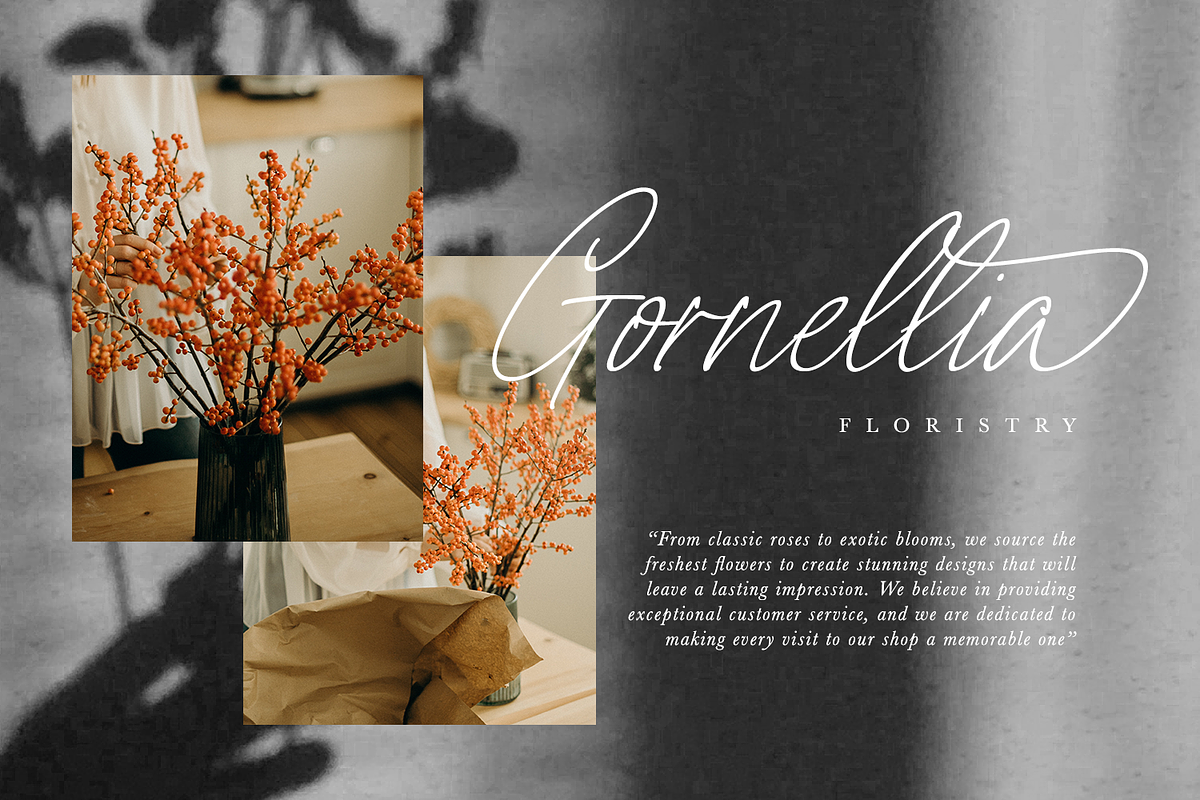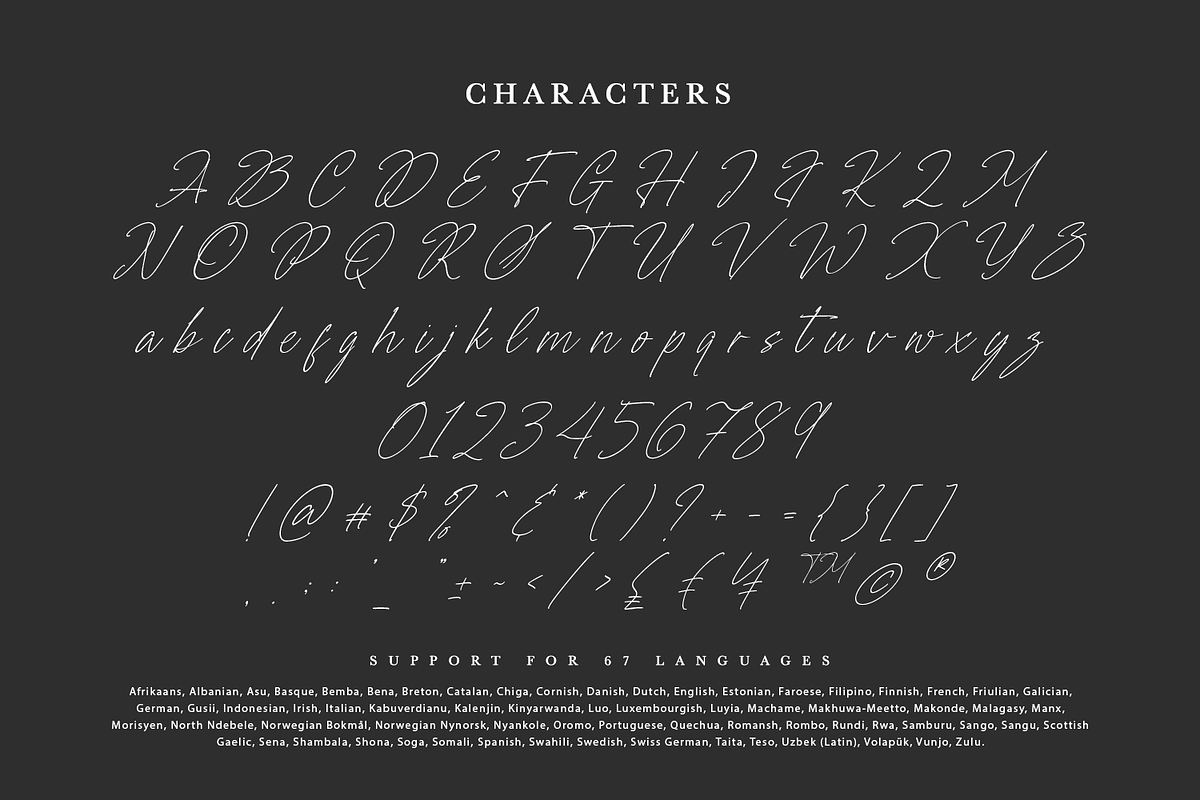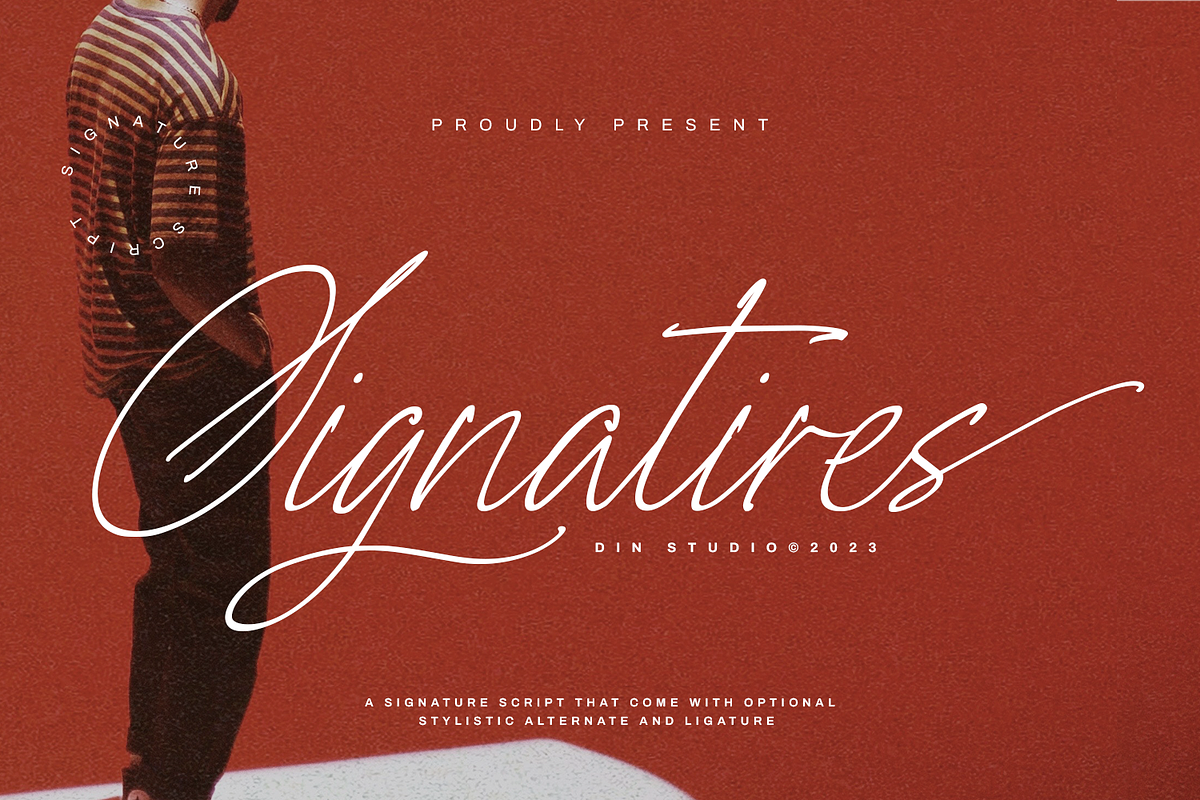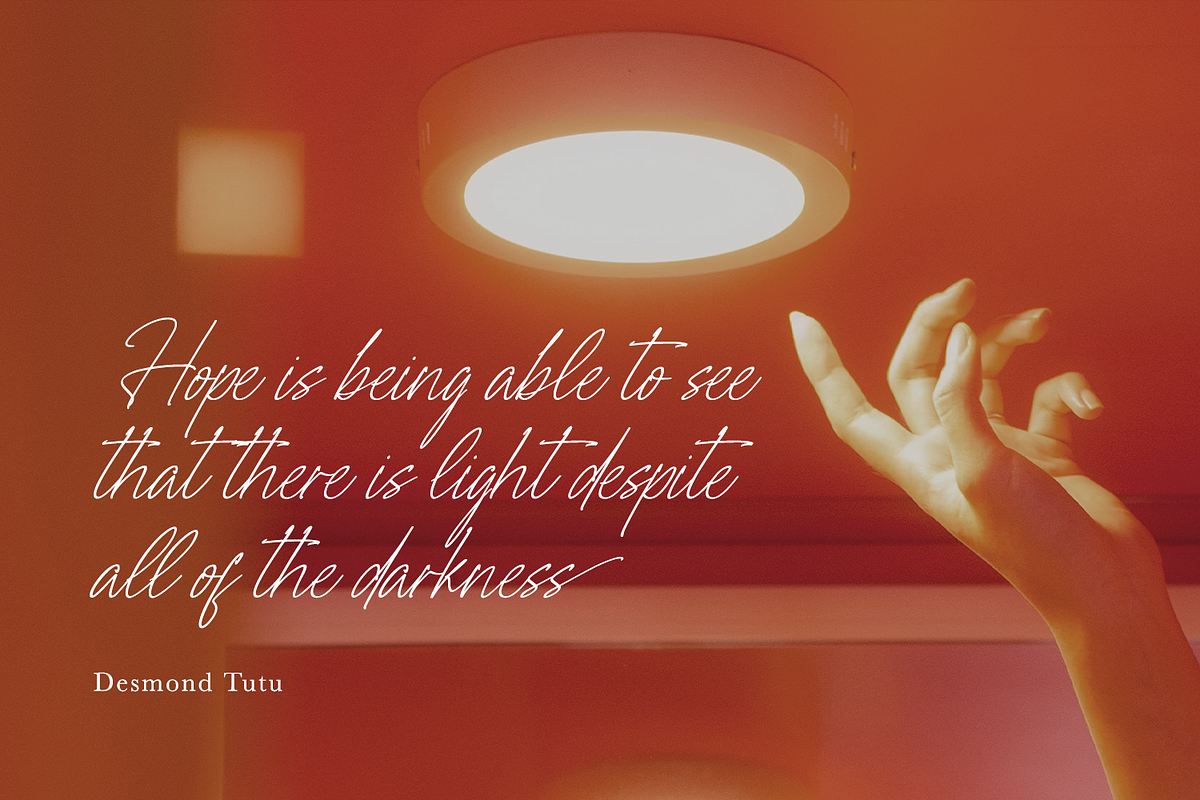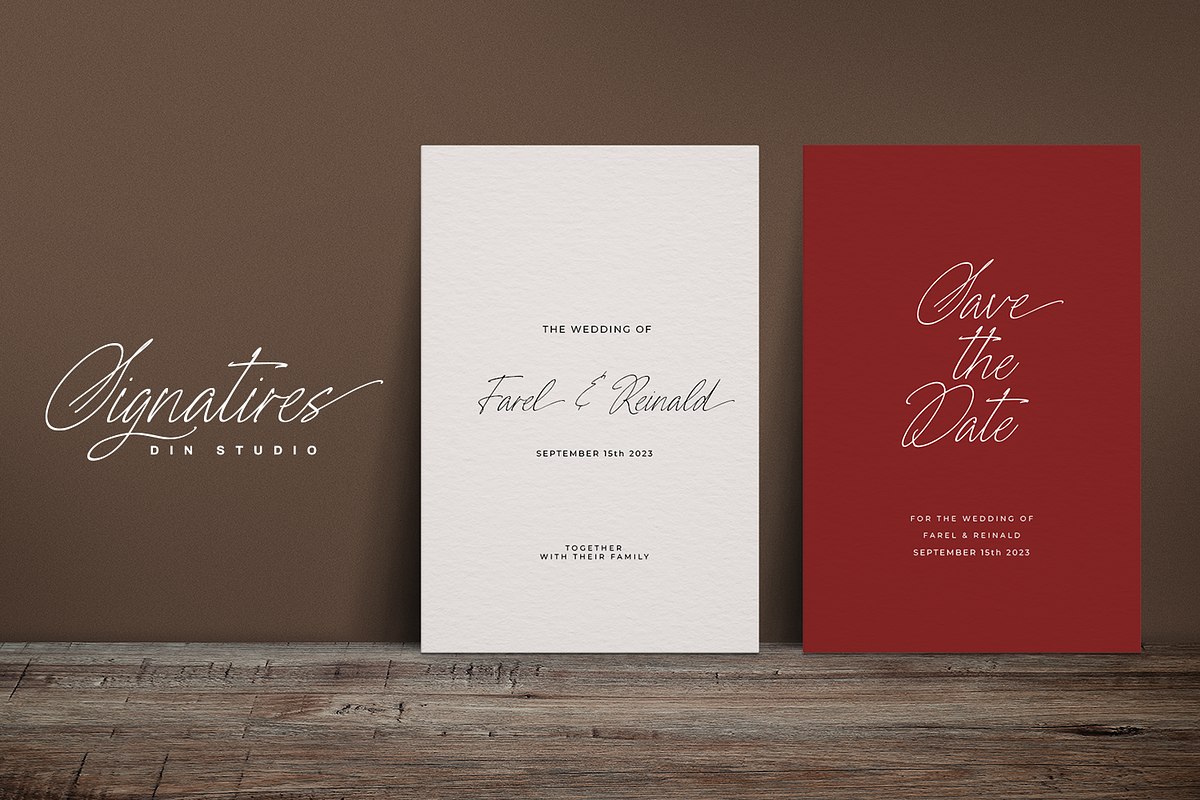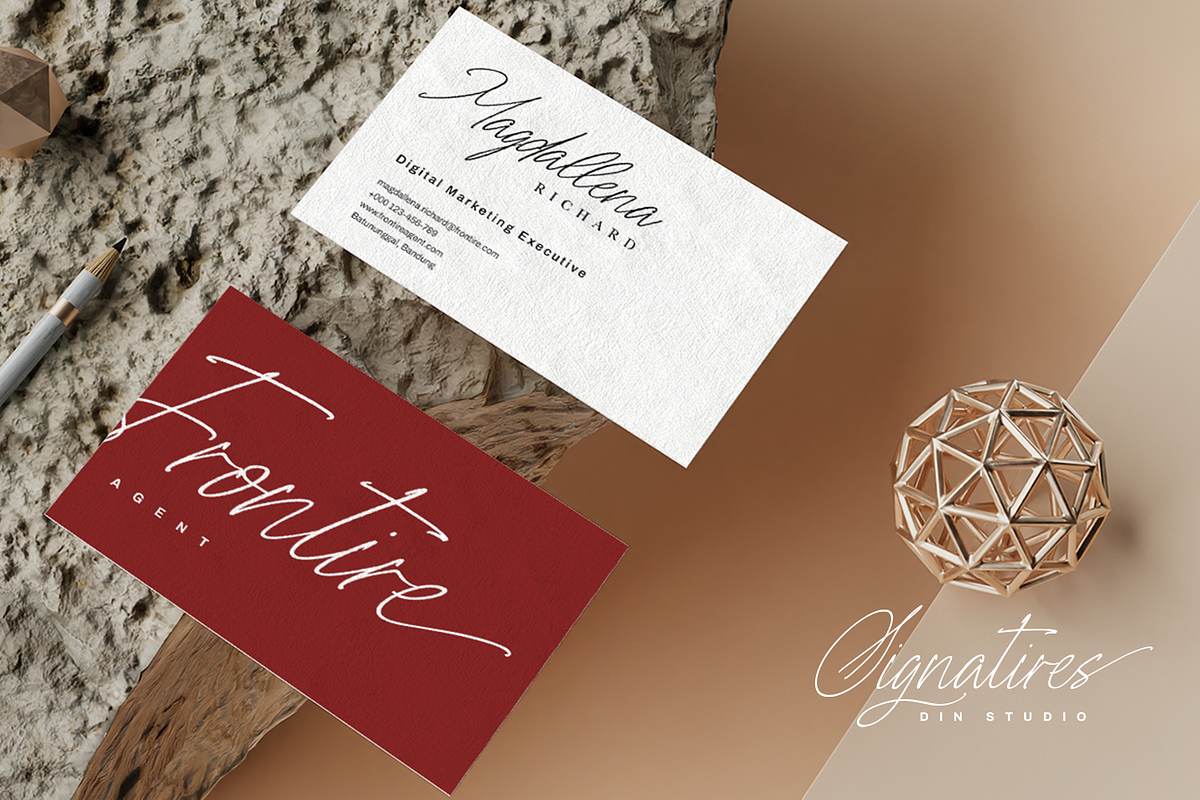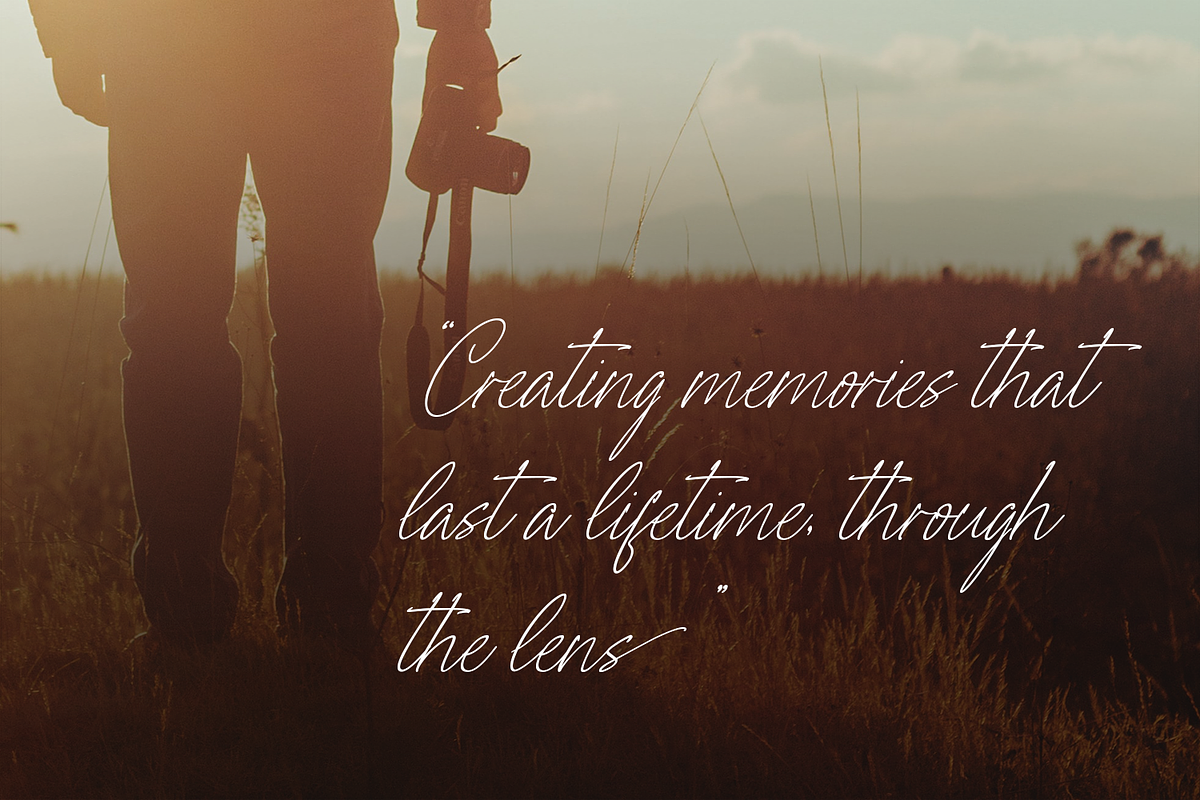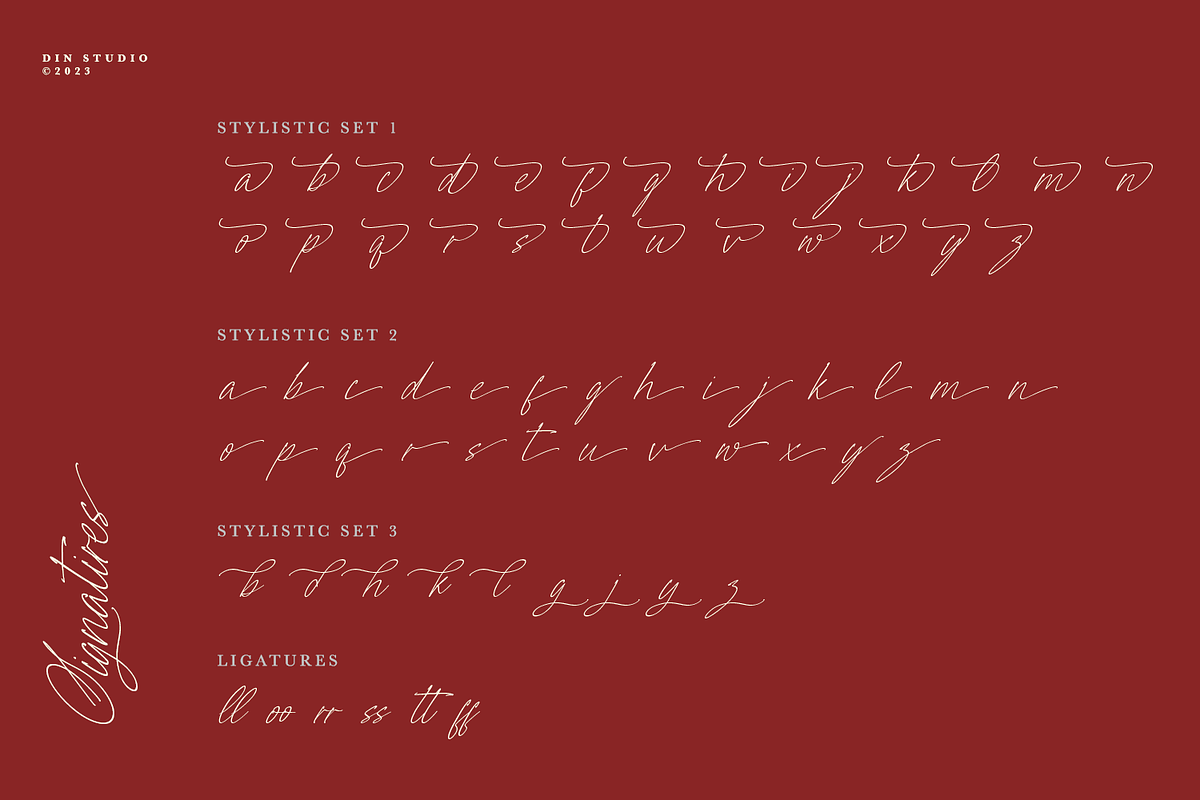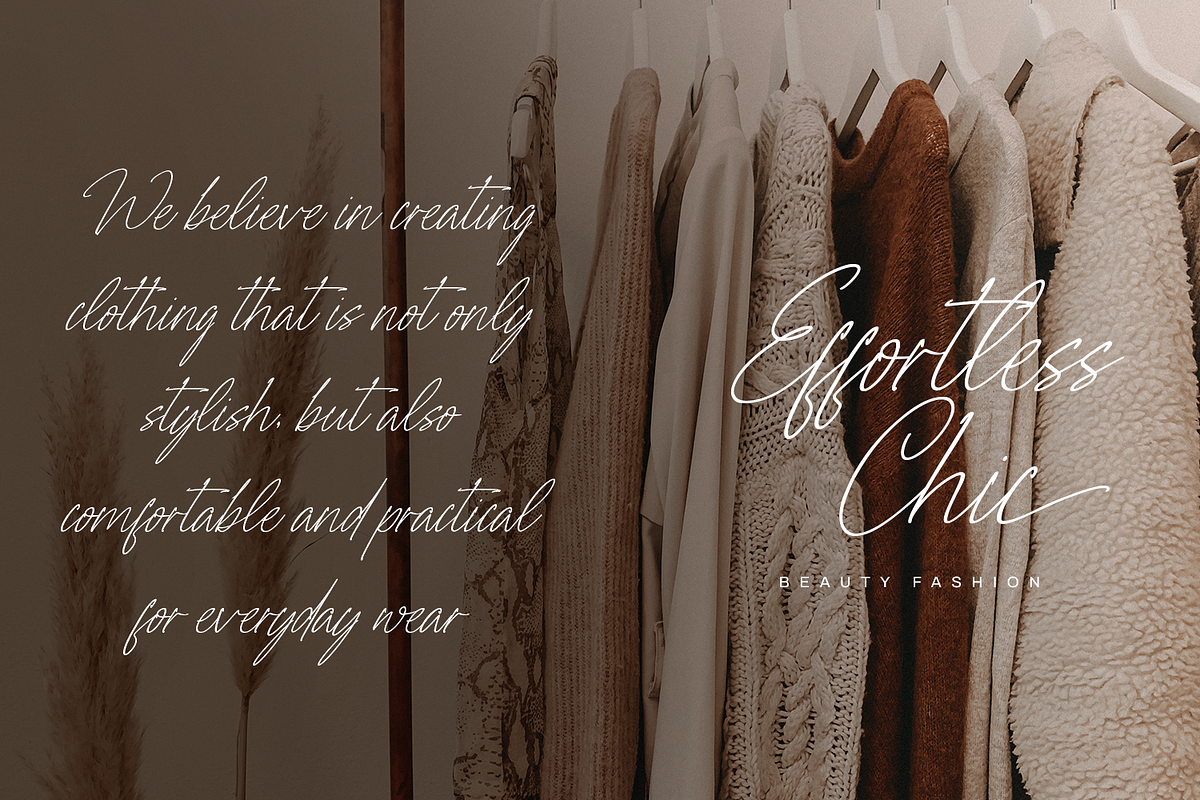
Signatires
Are you looking for a unique signature font to show your style? We have the right signature font for you. This is the Signatires, our signature font to help you create a visually amazing signature. This font is carefully designed to express elegant, dazzling characters which also helps you deliver your messages easily. Signatires’ contrast is high with swinging end wipes. Furthermore, its legibility is so great that it is suitable to apply for any text sizes. You can enjoy the available features here as well.
- Stylistic Sets
Signatires fits best for various design projects, such as brandings, posters, banners, greeting cards, magazine covers, quotes, printed products, merchandise, social media, etc. Find out more ways to use this font by taking a look at the font preview.